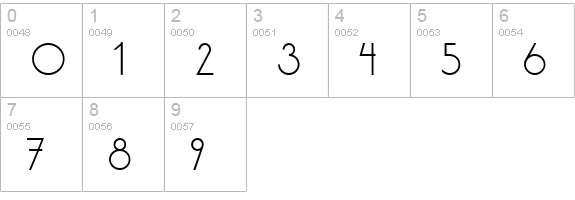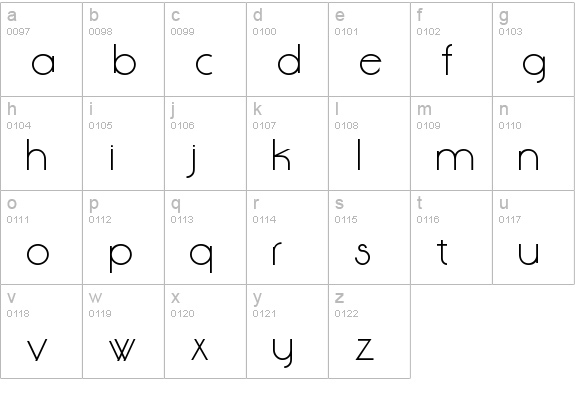
Anson Font Details
Anson font is a versatile and modern typeface that exudes elegance and sophistication. With its clean lines and timeless design, Anson font is perfect for a wide range of projects, from branding to editorial design. Whether you're creating a sleek logo or a stylish magazine layout, Anson font will elevate your design with its classic yet contemporary appeal. The best part? Anson font is completely free to download at FontsMarket.com. This means you can access this high-quality typeface without any cost, making it a valuable resource for designers and creatives alike. Don't miss out on the opportunity to enhance your projects with the beauty and versatility of Anson font - download it for free today!